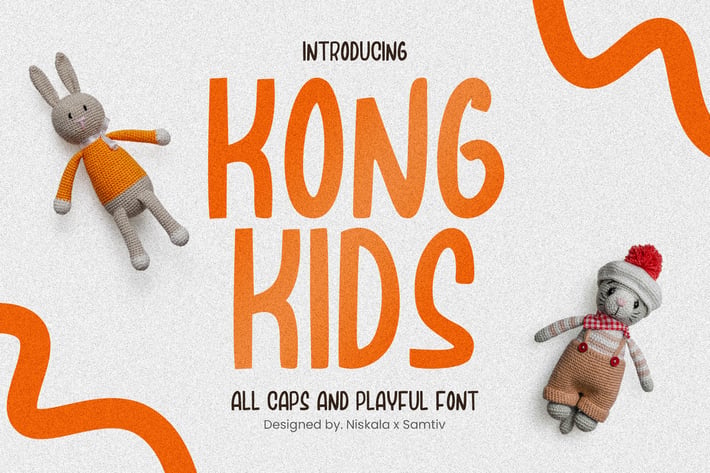
KongKids - A Modern Playful Handwritten Font
KongKids - All Caps Display Font is an awesome with modern cutouts, and a dynamic slant. Ideal for Poster titles, menu flyer, Packaging, Logo and monograms or other modern dynamic text. KongKids compares favorably with legibility and size, creating the effect of power. Designed as a fast and dynamic font, but with a slightly different font design, check it out and grab it right away.